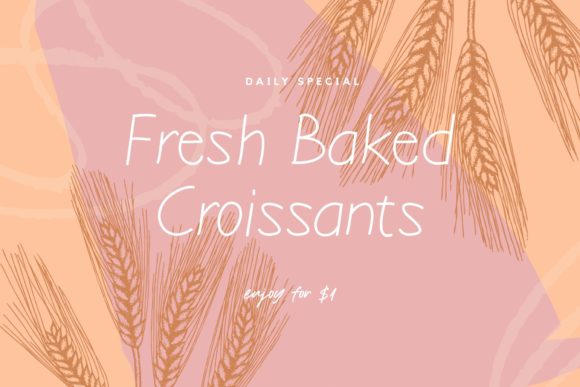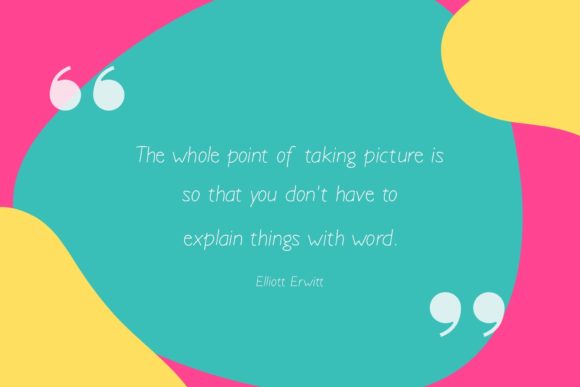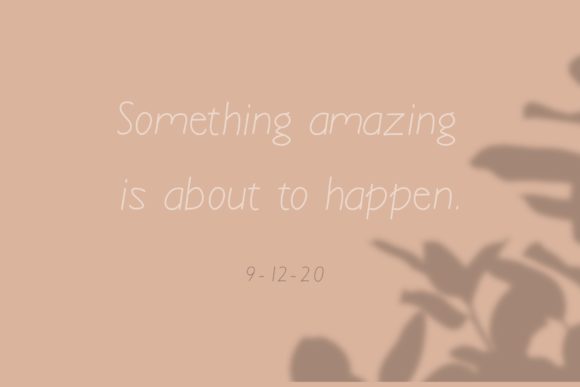
Camila Font: The Perfect Handwritten Font for Chalkboard Quotes and Teaching Materials
Are you a designer or crafter looking for a font that can add a personal and realistic feel to your designs? Look no further than Camila Font! This cute and simple lettered handwritten font is perfect for creating chalkboard quotes, teaching materials, and other designs that require a touch of authenticity.
What is Camila Font?
Camila Font is a beautiful, handwritten font that is designed to mimic the look of chalkboard writing. Its authentic look and feel make it perfect for creating designs that require a personal touch. Whether you’re creating chalkboard quotes, teaching materials, or other designs, Camila Font is the perfect choice.
Features of Camila Font
Camila Font has several features that make it a great choice for designers and crafters. Some of its key features include:
- Cute and Simple Design: Camila Font has a cute and simple design that is easy to read and understand. Its clean lines and minimalist design make it perfect for creating designs that require a touch of elegance.
- Handwritten Look: Camila Font has a handwritten look that gives it a personal and realistic feel. Its imperfections and irregularities make it look like it was written by hand, adding a touch of authenticity to your designs.
- Chalkboard Style: Camila Font is designed to mimic the look of chalkboard writing, making it perfect for creating chalkboard quotes and teaching materials.
- Easy to Read: Camila Font is easy to read and understand, making it perfect for creating designs that require a clear and concise message.
Uses of Camila Font
Camila Font can be used for a variety of design projects, including:
- Chalkboard Quotes: Camila Font is perfect for creating chalkboard quotes that require a personal and realistic feel.
- Teaching Materials: Camila Font is great for creating teaching materials, such as worksheets, handouts, and presentations.
- Signs and Posters: Camila Font can be used to create signs and posters that require a clear and concise message.
- Digital Designs: Camila Font can be used for digital designs, such as social media graphics, blog posts, and email newsletters.
Benefits of Using Camila Font
There are several benefits to using Camila Font for your design projects. Some of the benefits include:
- Unique and Authentic Look: Camila Font has a unique and authentic look that sets it apart from other fonts.
- Easy to Read: Camila Font is easy to read and understand, making it perfect for creating designs that require a clear and concise message.
- Versatile: Camila Font can be used for a variety of design projects, from chalkboard quotes to digital designs.
- Time-Saving: Camila Font can save you time and effort by providing a pre-designed font that can be easily used in your designs.
Camila Font is a beautiful, handwritten font that is perfect for creating chalkboard quotes, teaching materials, and other designs that require a personal and realistic feel. Its cute and simple design, handwritten look, and chalkboard style make it a great choice for designers and crafters. With its ease of use and versatility, Camila Font is a great addition to any design project.